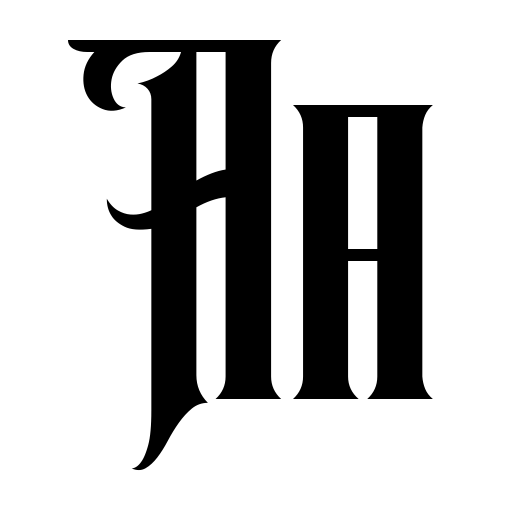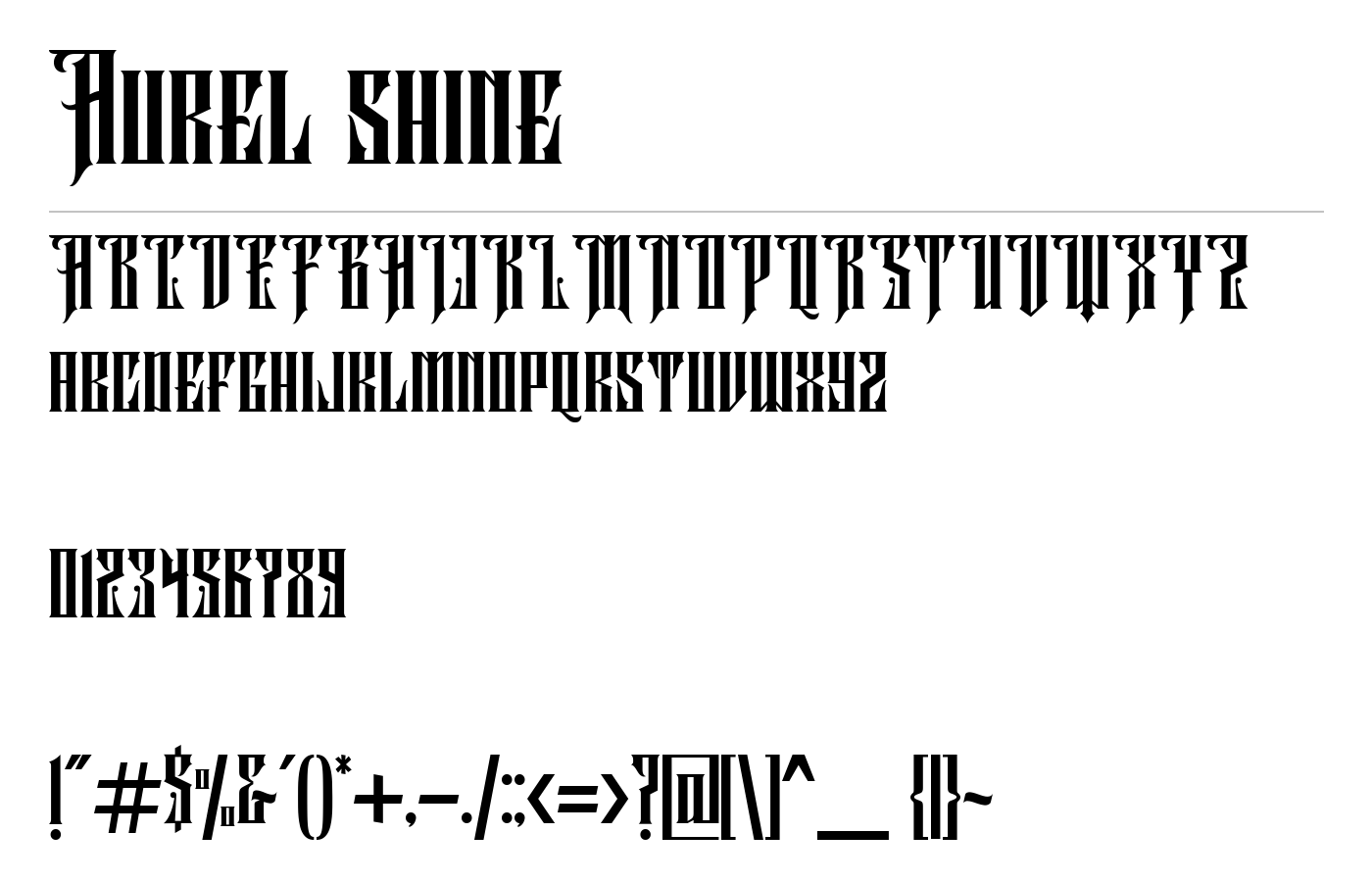
Aurel Shine is a striking blackletter-inspired display font with tall, narrow letterforms and sharp, angular serifs that give it a bold, gothic character. Its high contrast between thick and thin strokes combined with dense, condensed spacing creates a dramatic and vintage feel, perfect for eye-catching headlines, logos, and branding that requires a sense of old-world elegance and strong personality. This font works best in creative projects where a distinct, historic, and edgy style is desired.
Aurel shine Font
About Aurel shine Font
| Font family | Aurel shine Font |
| Designer | Stringlabs |